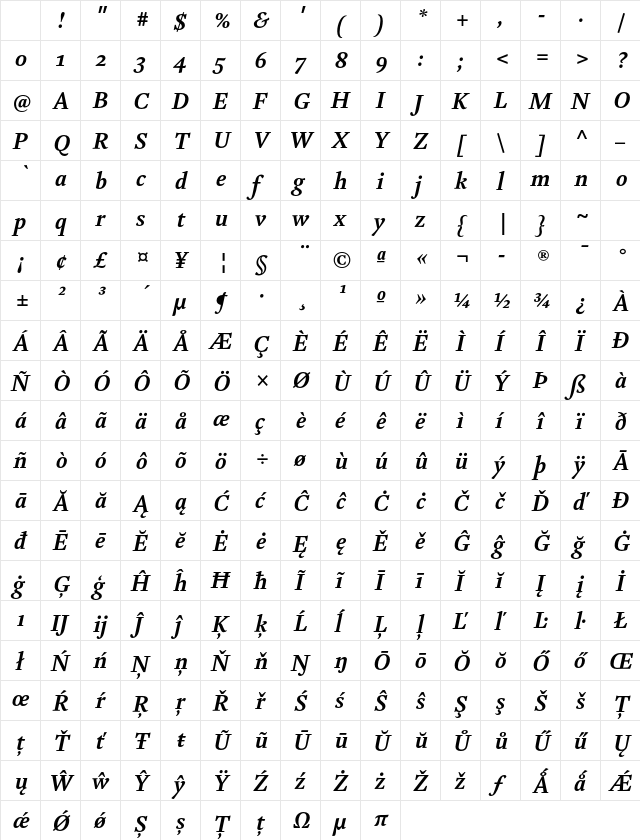
Complete Kingfisher Bold Italic glyph index. Displaying only characters natively supported by Kingfisher Bold Italic font.
Kingfisher is a composed and adaptable typeface that performs quietly and consistently across a wide range of design contexts. The slanted form adds forward momentum and visual energy. Its bold stroke weight gives it real presence on the page.
Pro Tip: Use Kingfisher for emphasis, pull quotes, and subheadings where its slanted energy can add rhythm to the layout.